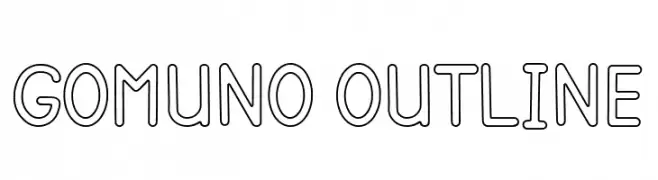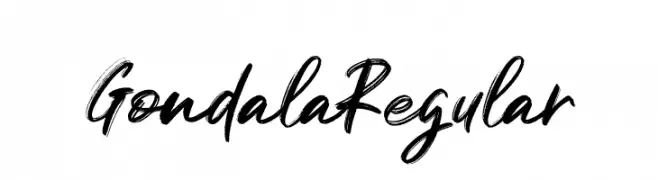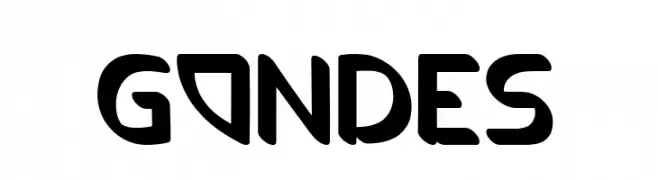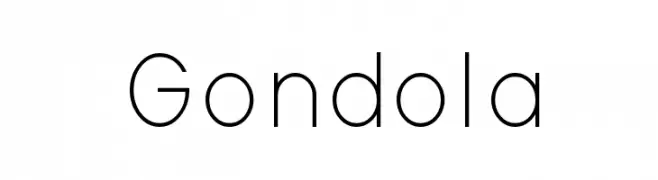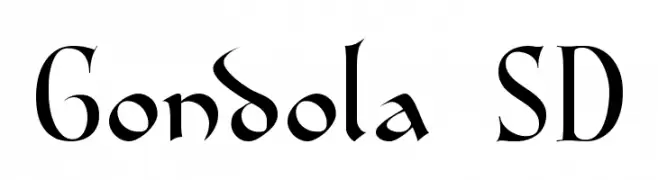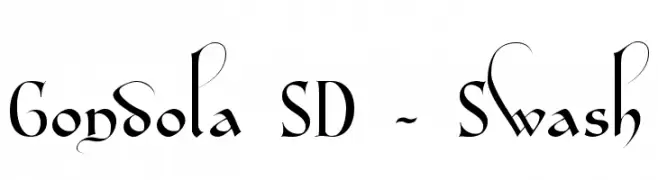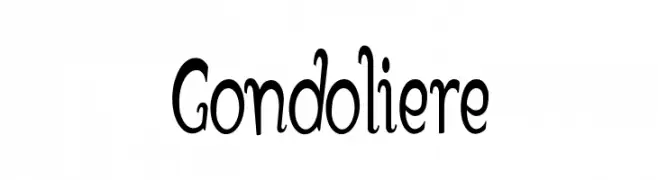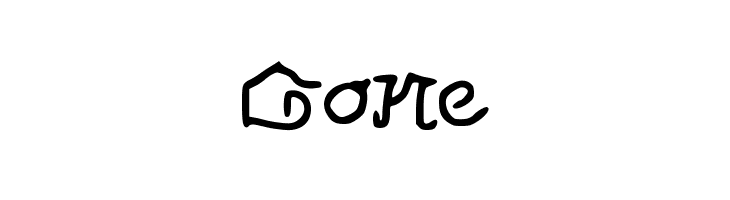
A modern outline font with geometric, hollow letterforms and rounded edges.
A bold, brush-style font with dynamic, hand-painted strokes.
A playful, bold font with rounded edges and a hand-drawn feel.
A bold, expressive script font with high contrast and dynamic strokes.
A modern, geometric sans-serif font with a clean and minimalistic design.
A classic, calligraphic font with elegant serifs and ornate lowercase letters.
An elegant serif font with swash elements and flowing curves.
A bold, decorative font with a three-dimensional layered effect.